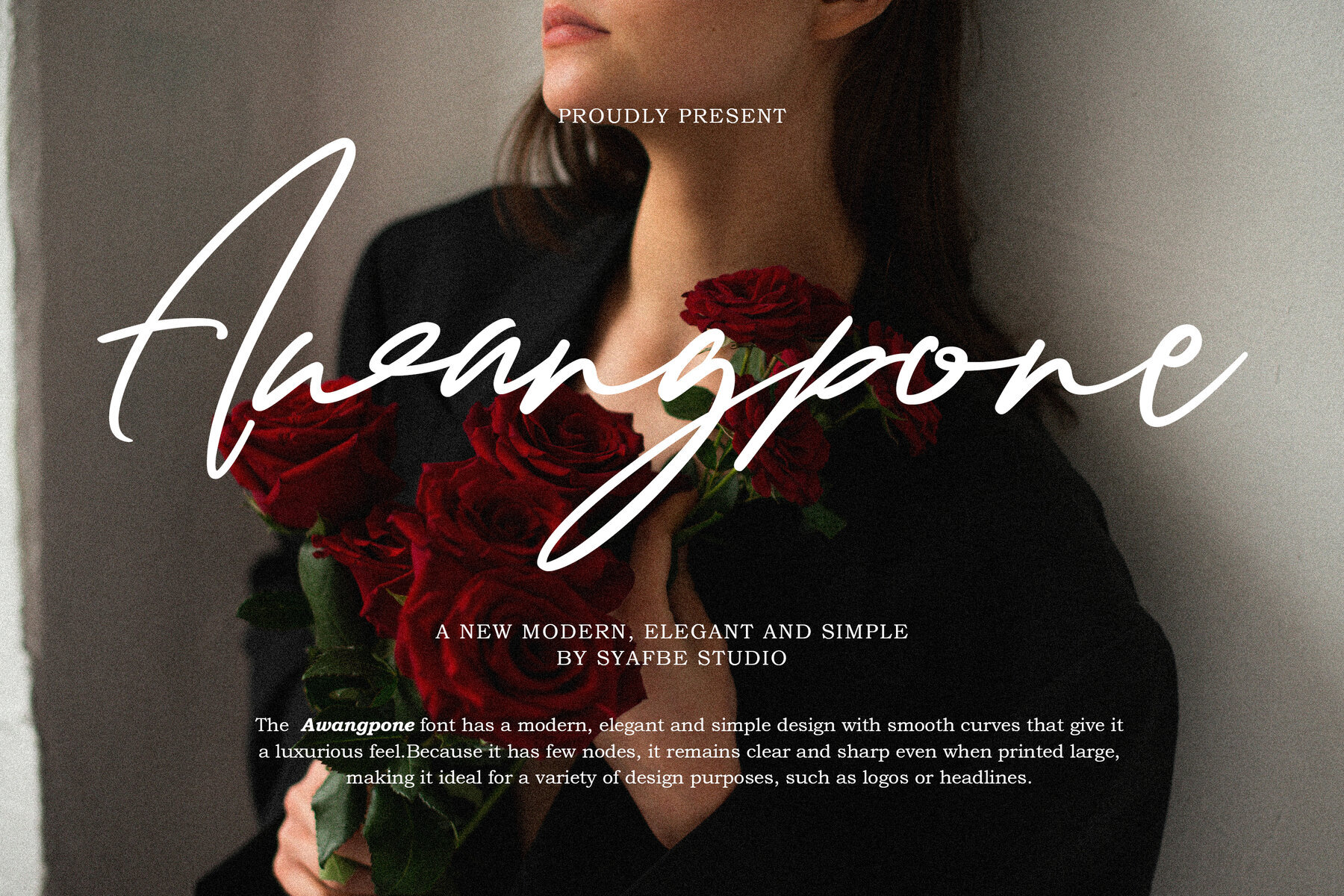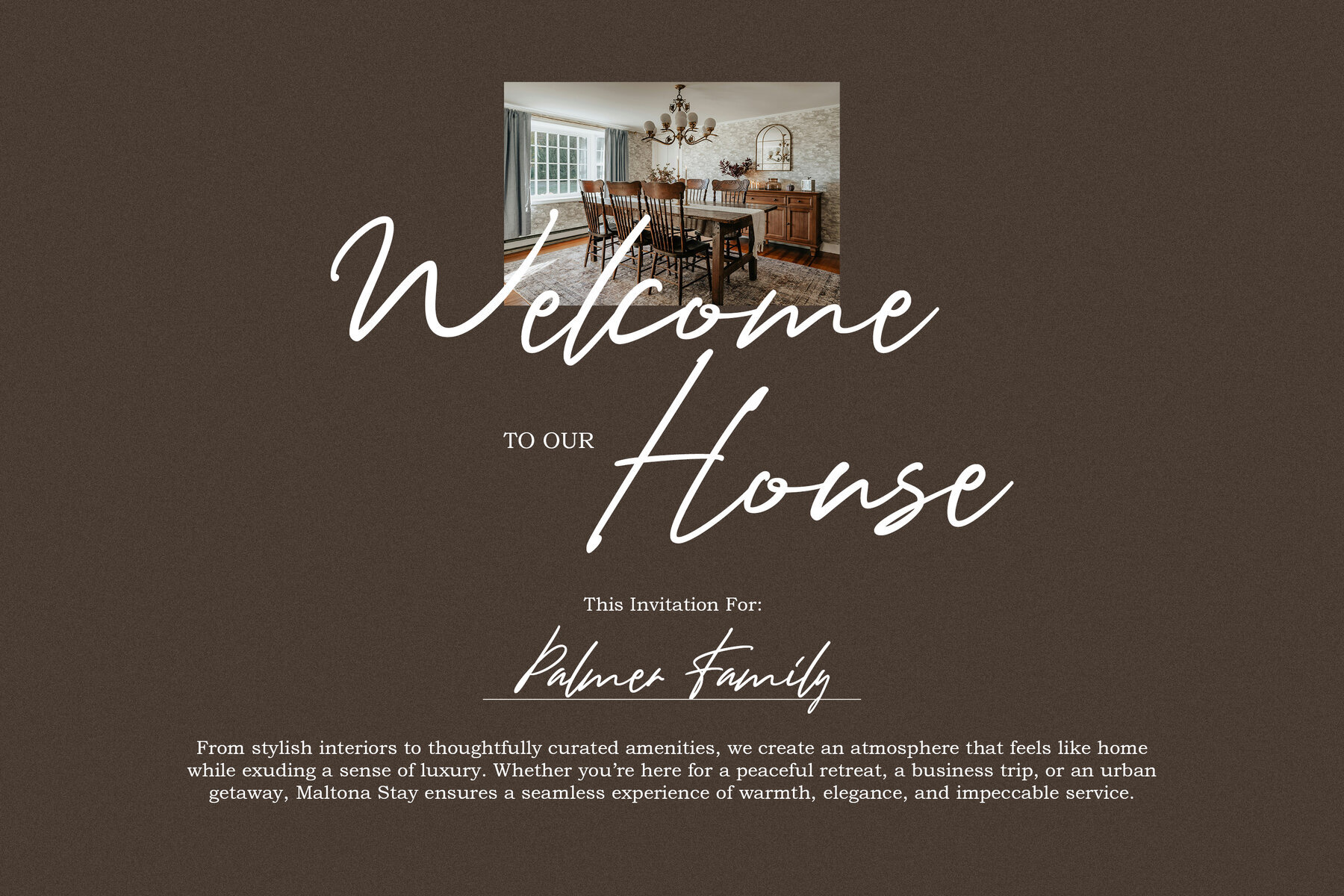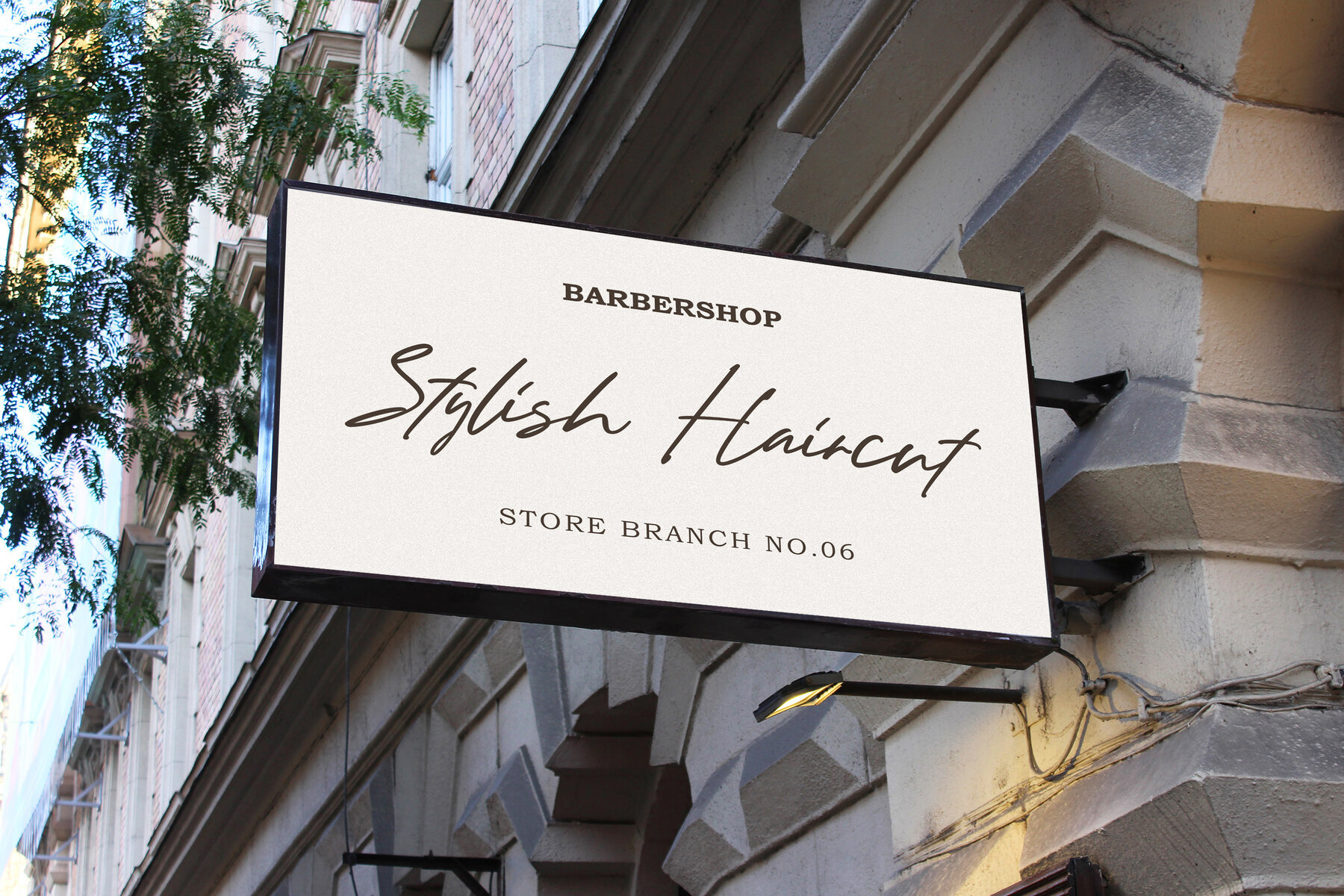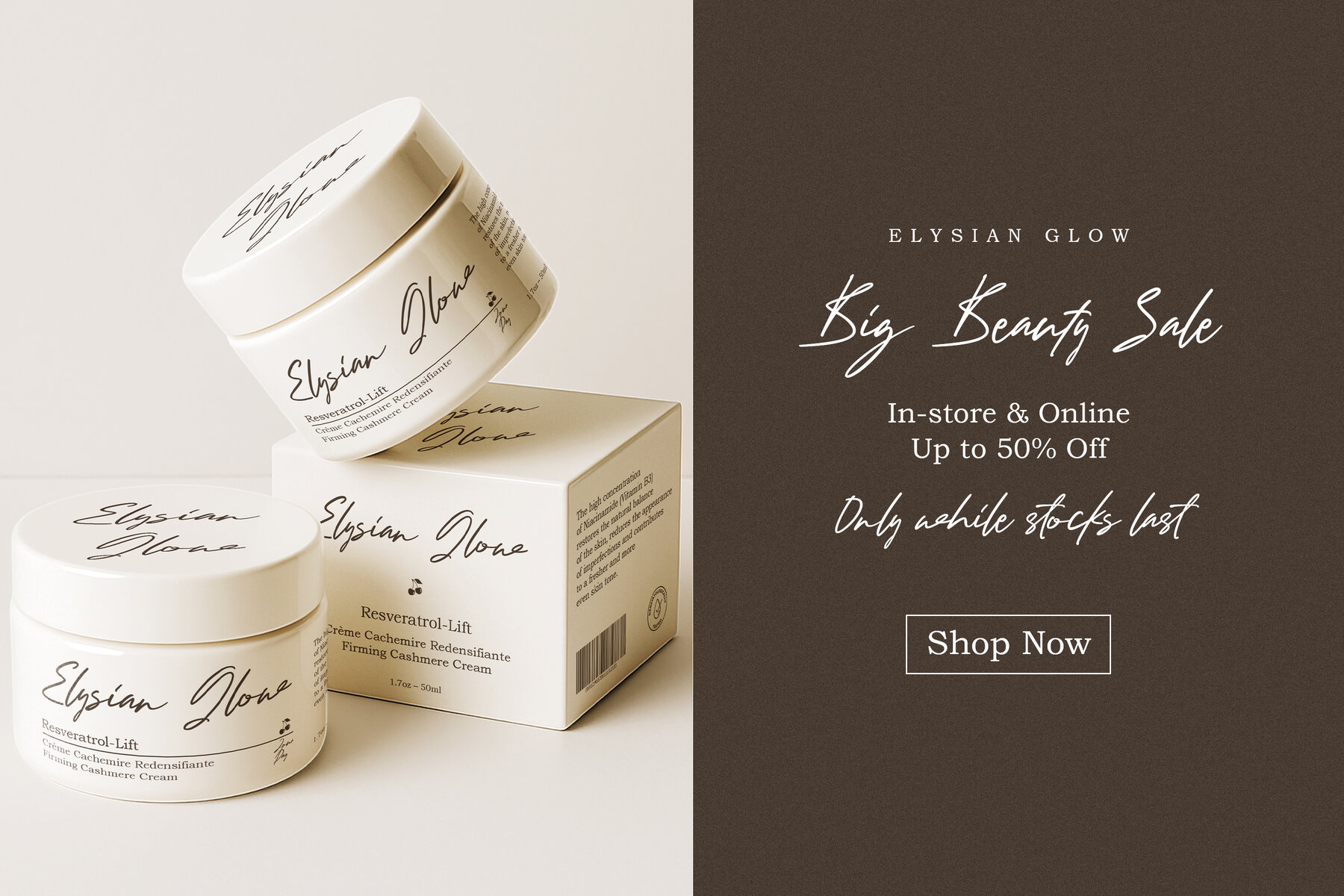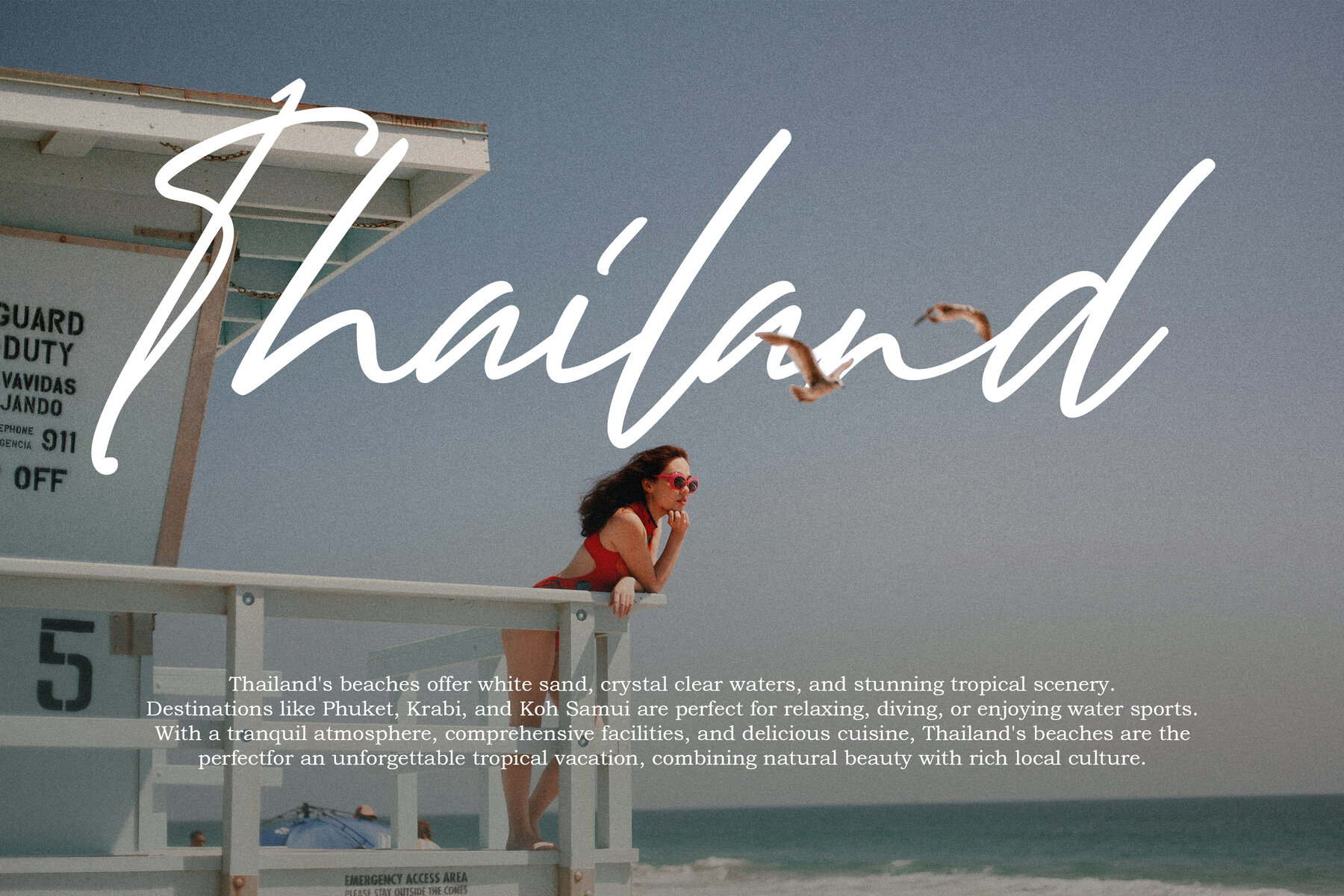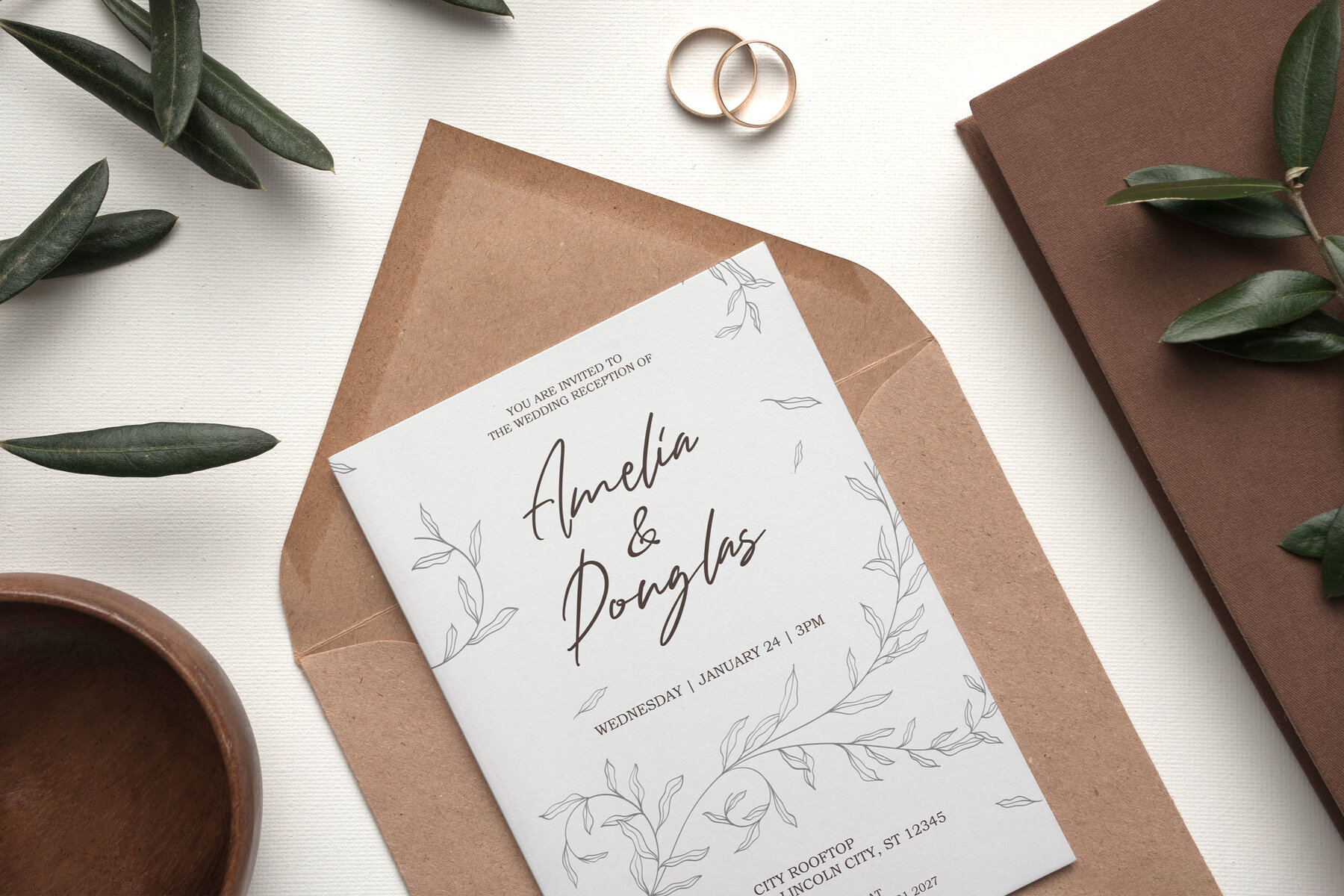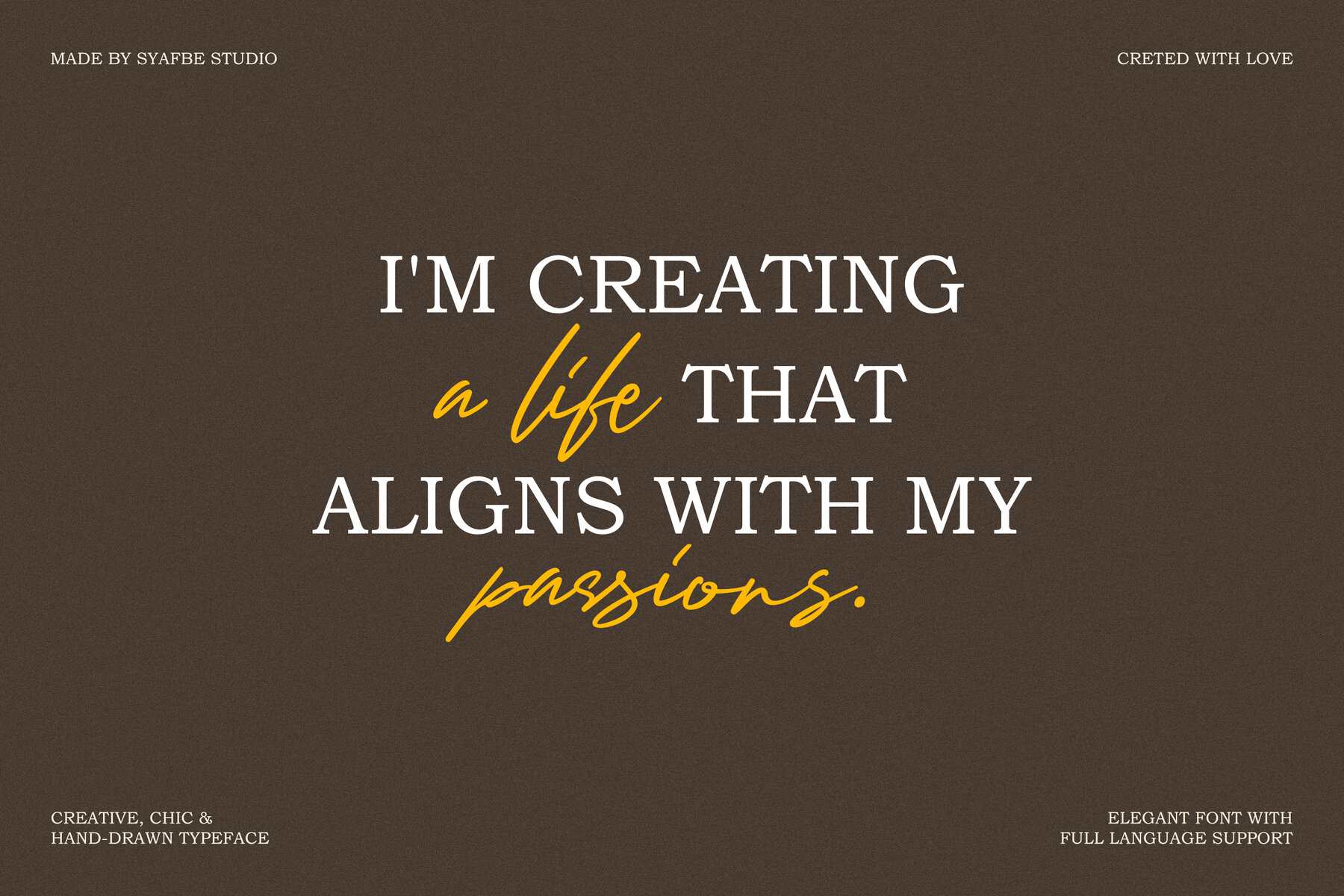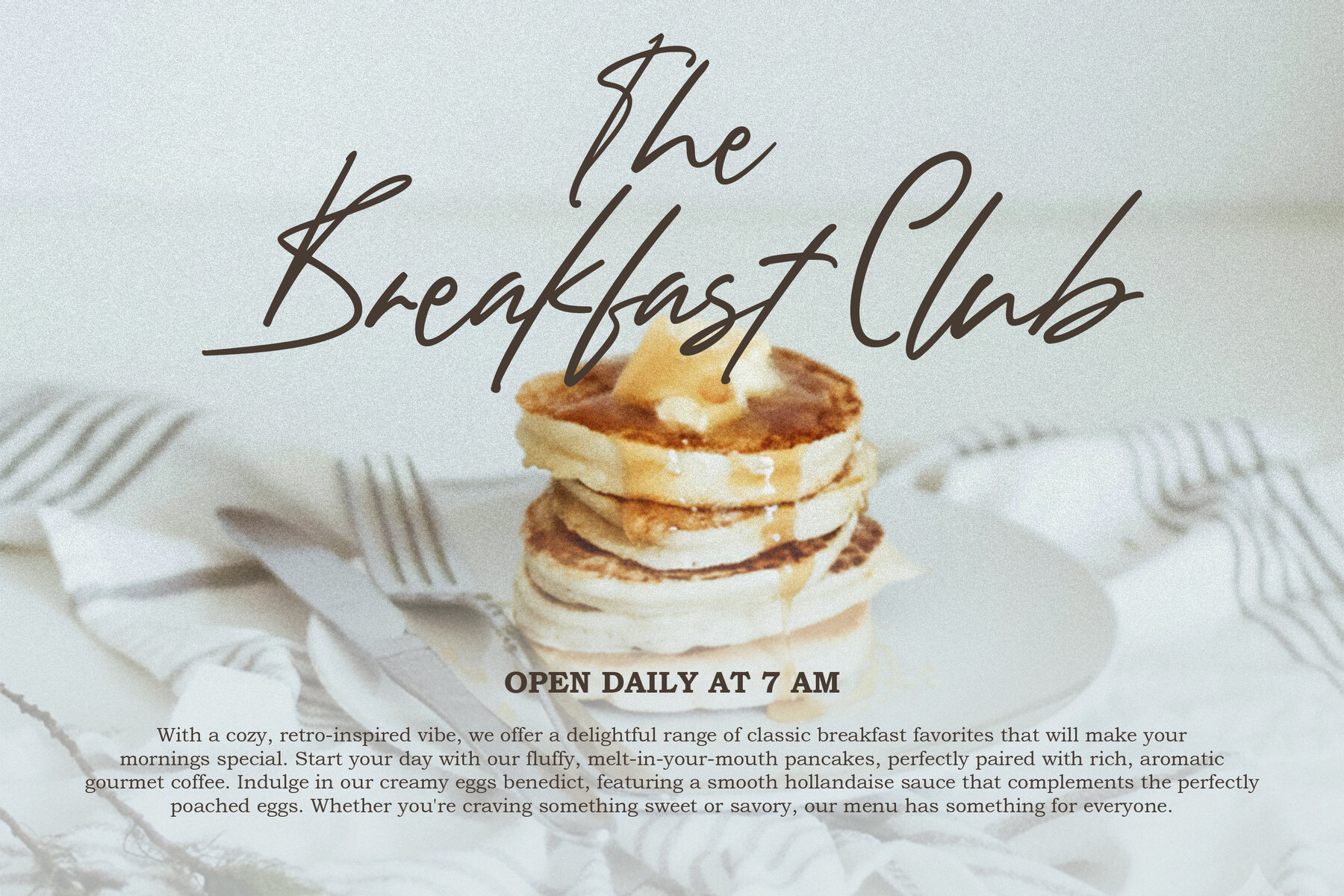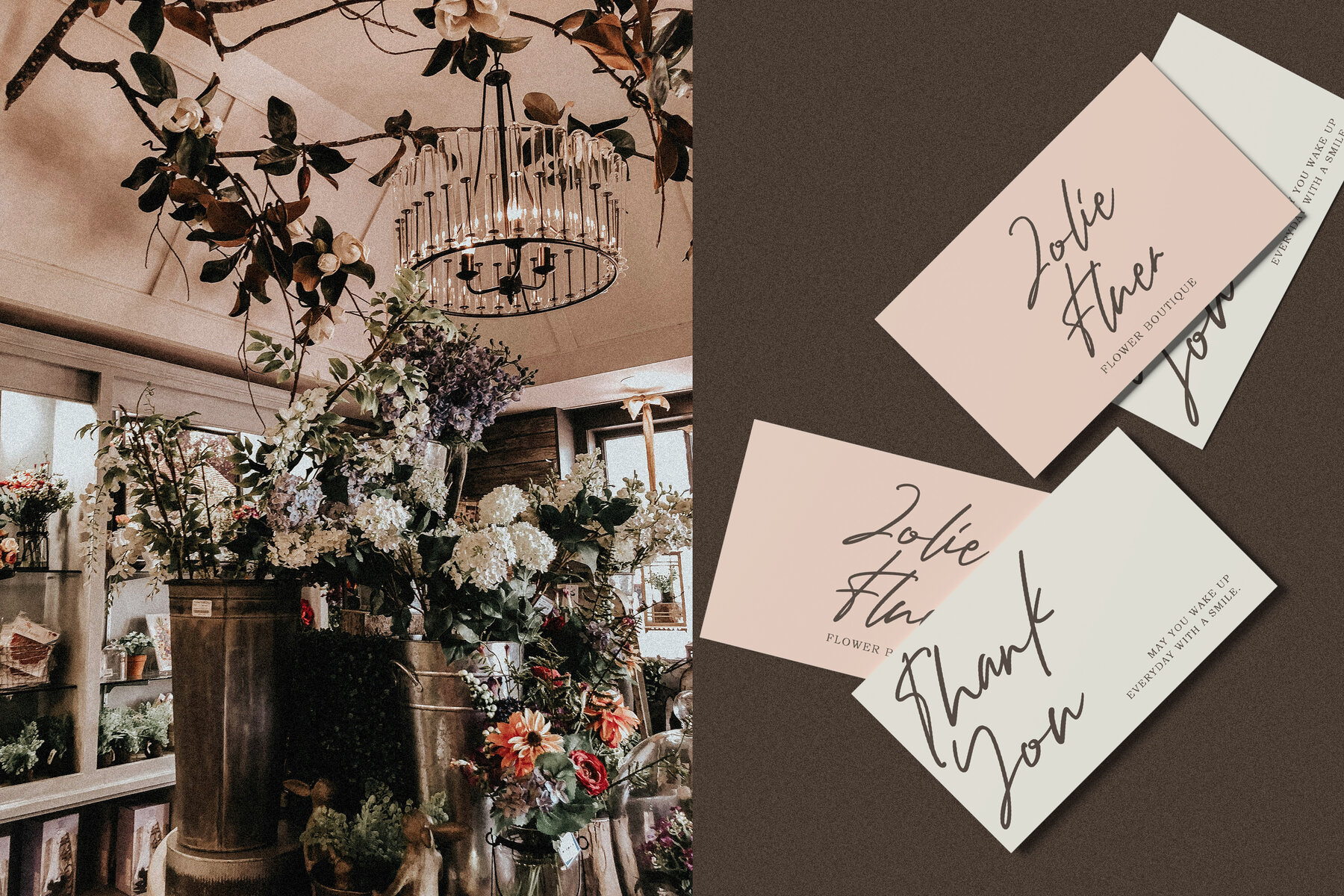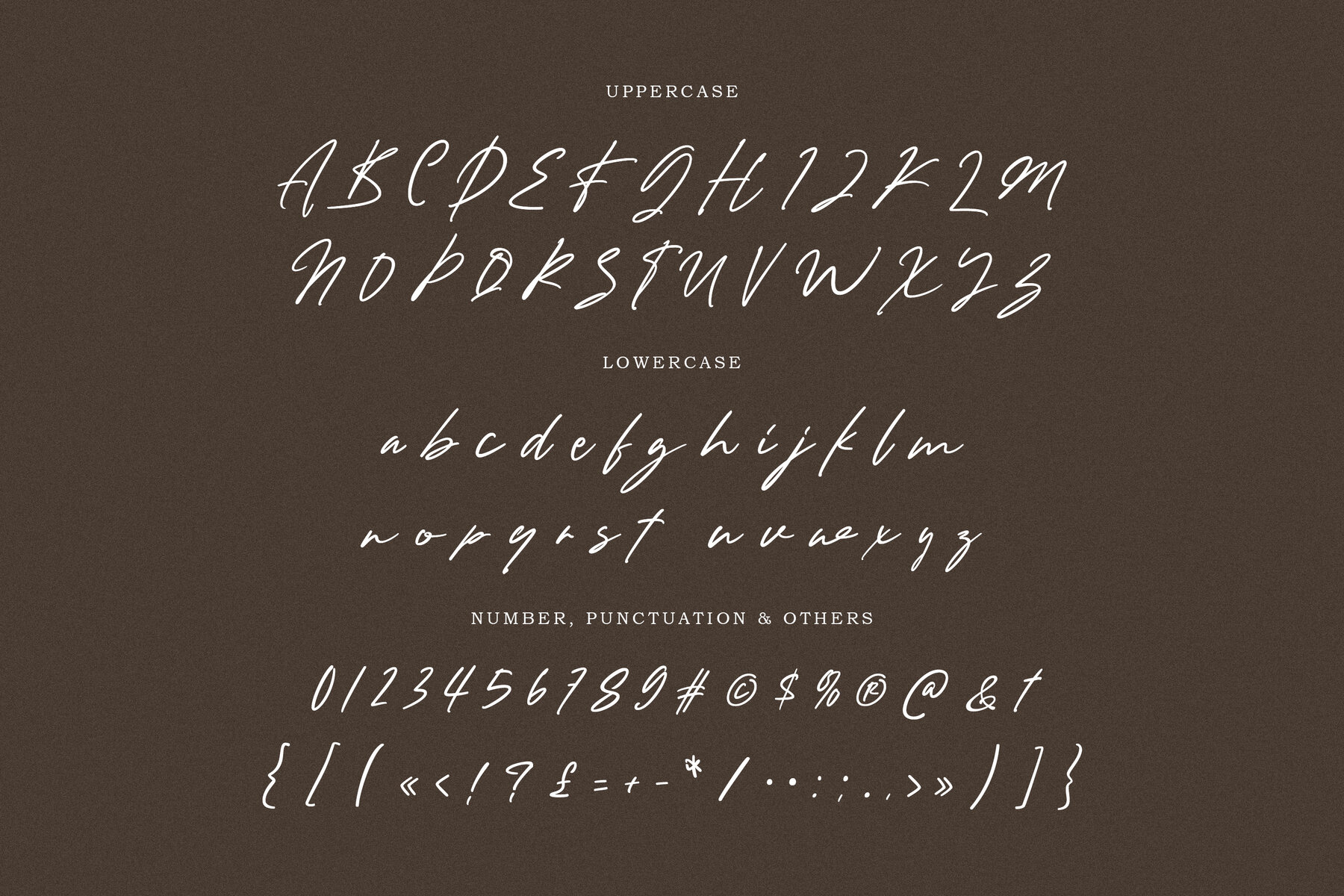
Awangpone Font
Awangpone Regular
Awangpone brings a sophisticated presence to contemporary branding projects. Defined by smooth curves and flowing lines, each letterform offers clarity and confidence without excess ornamentation. The result balances luxurious appeal with clean geometry, making Awangpone suited for settings where subtlety and visual strength coexist. Designers drawn to minimalist yet striking solutions will find Awangpone ideal for logos, headlines, and high-impact visual content. Its polished aesthetic resonates with modern creative sensibilities while retaining an air of distinction. The font’s technical design features fewer nodes, ensuring exceptional clarity and sharpness at large scales. Awangpone remains poised—every letter maintains its integrity across formats, from banners to posters. The restrained detailing provides a sleek silhouette with a dynamic edge, supporting seamless readability and style. This makes Awangpone a fitting choice for projects desiring a premium, elegant typographic identity that stands out and communicates professionalism.Awangpone: Refined Modern Serif for Premium Branding